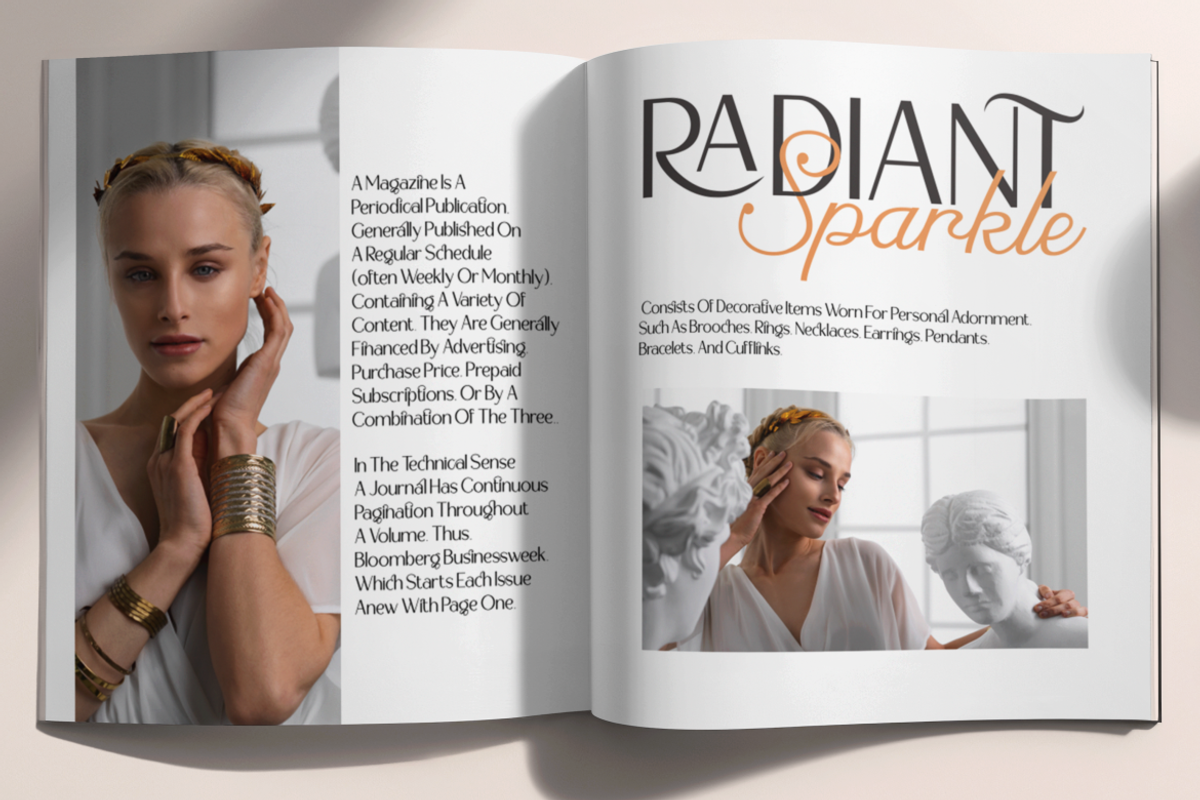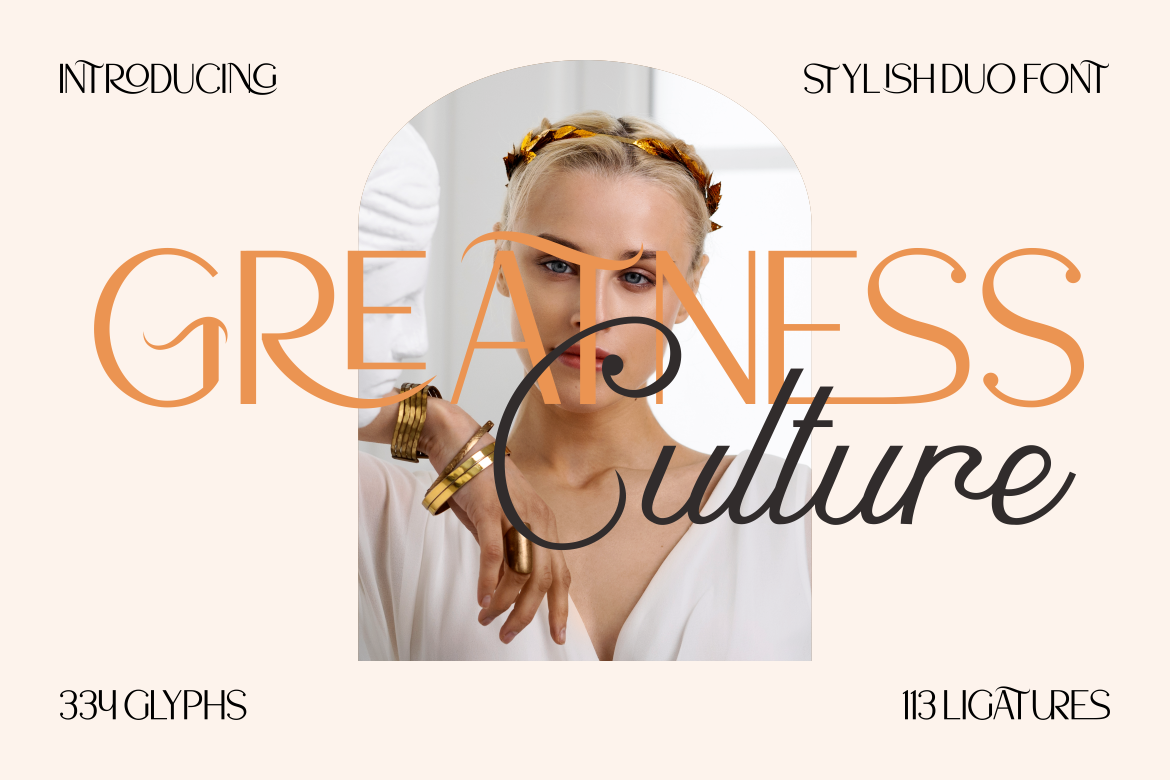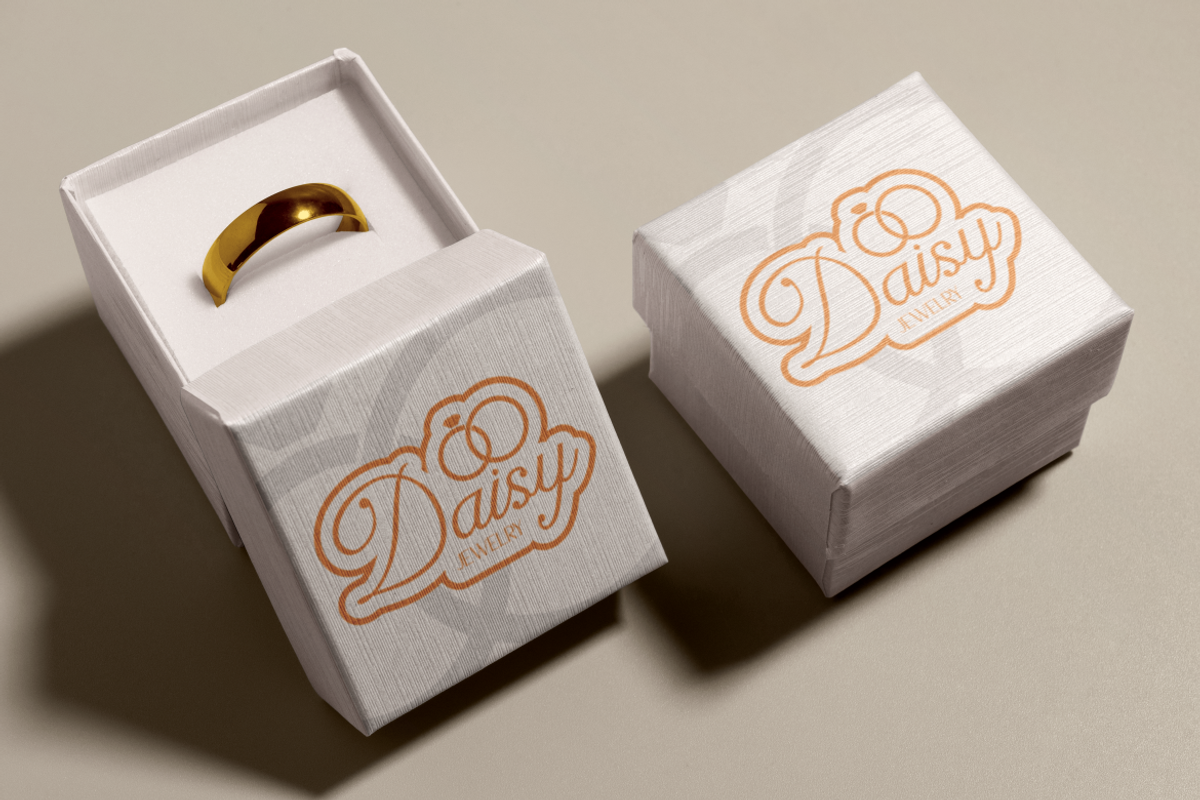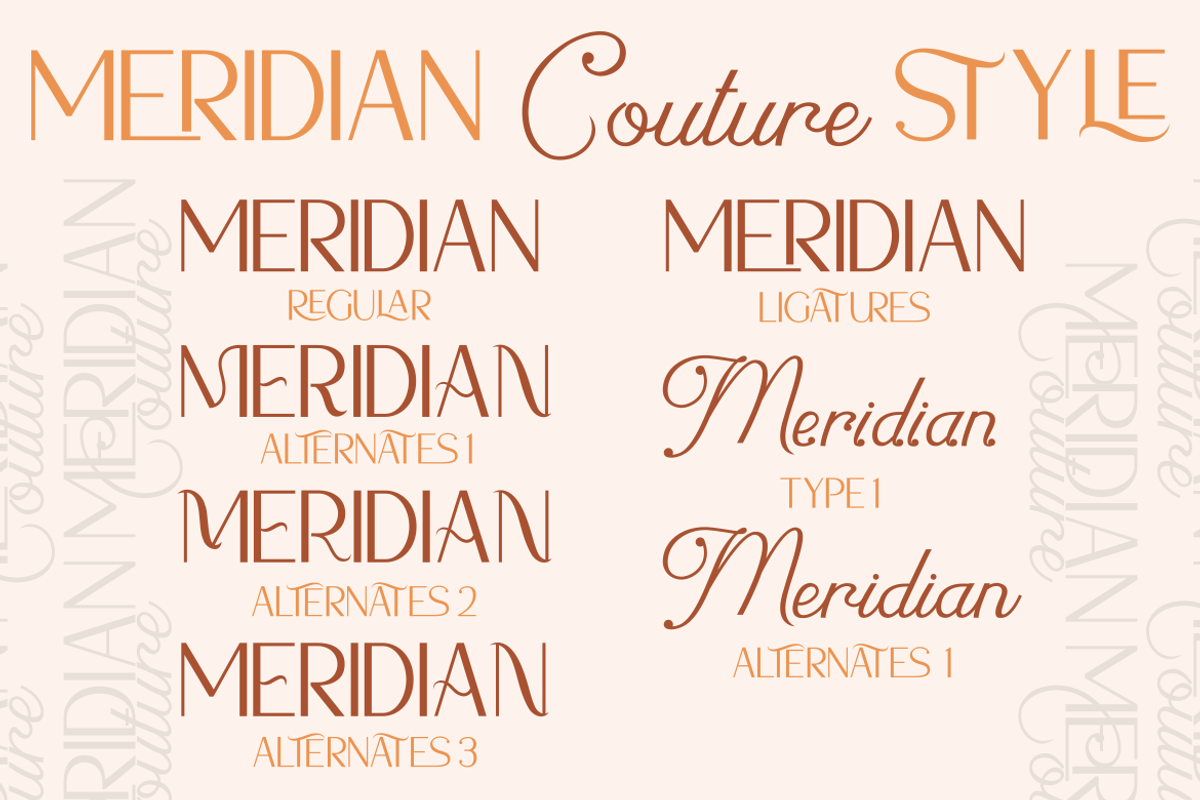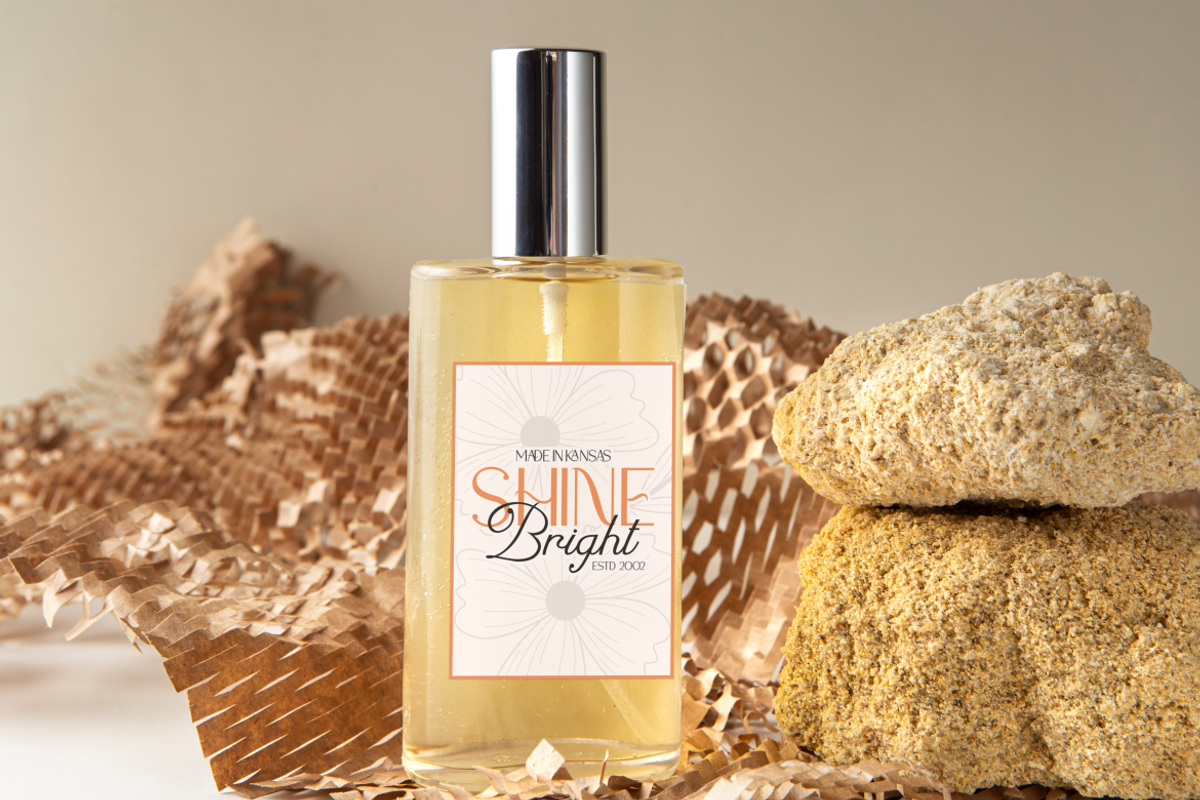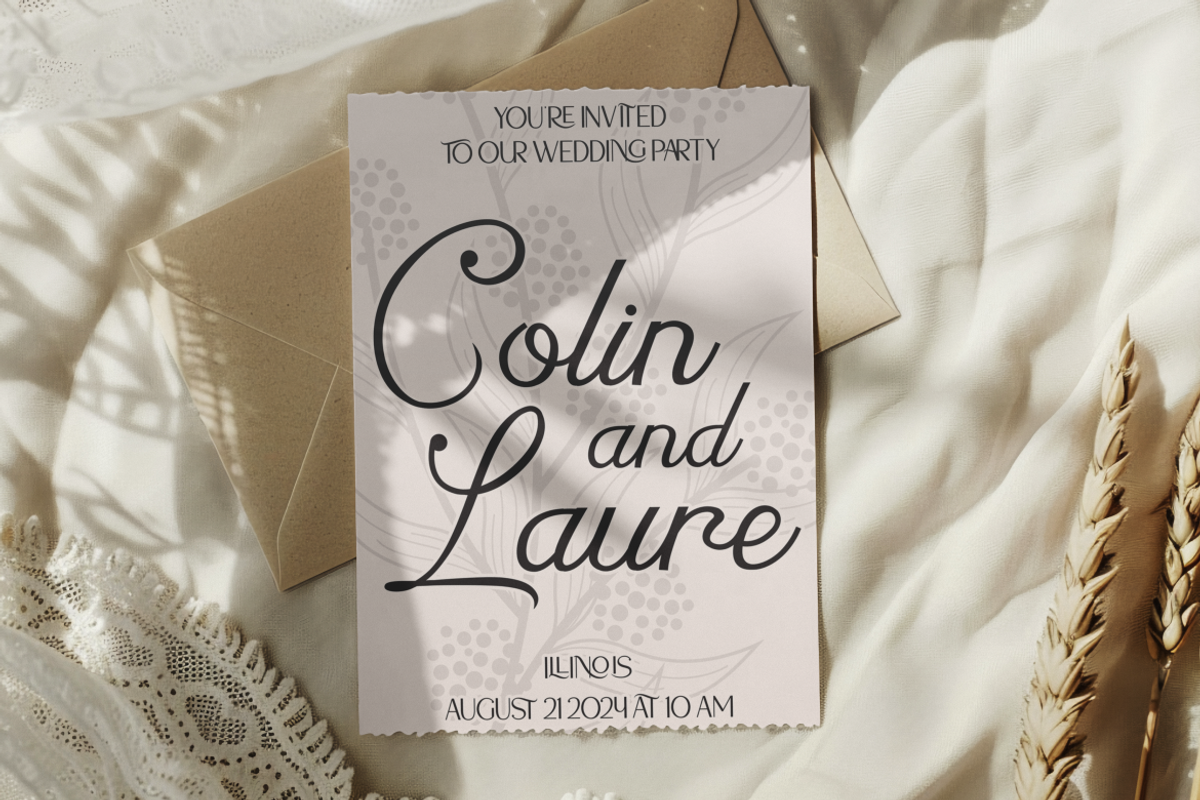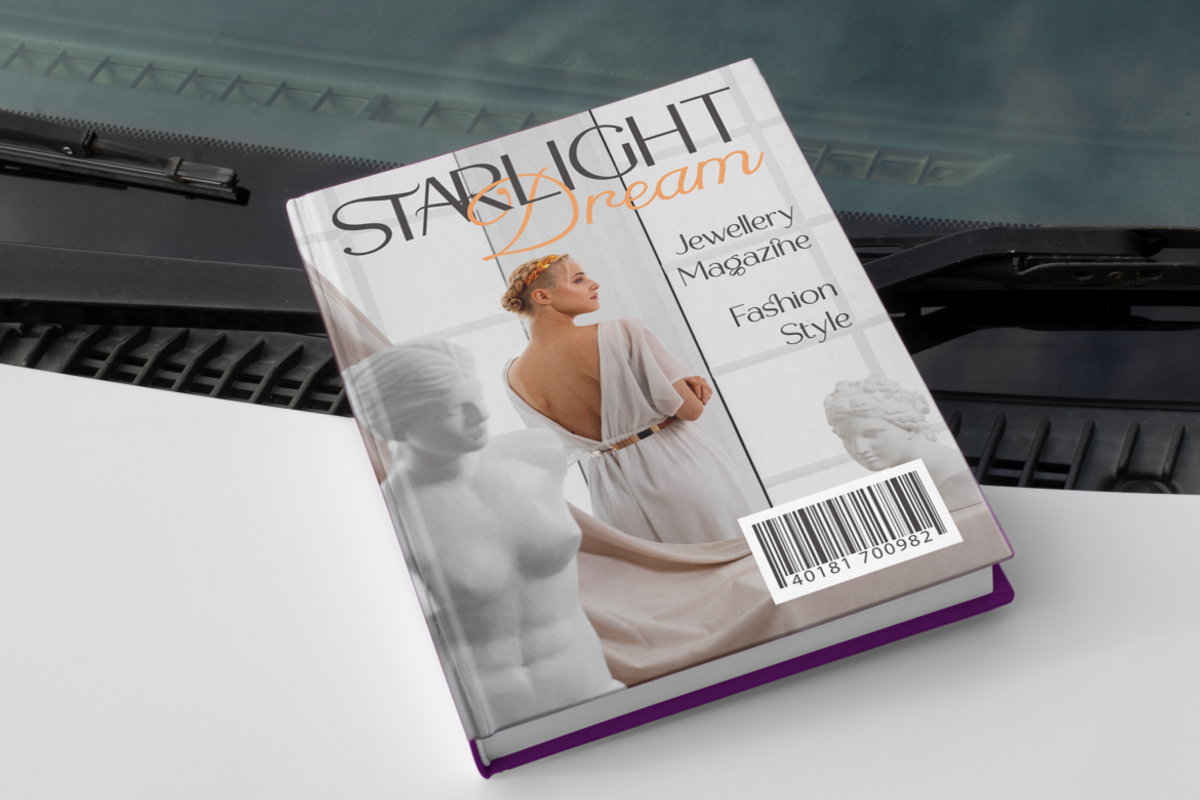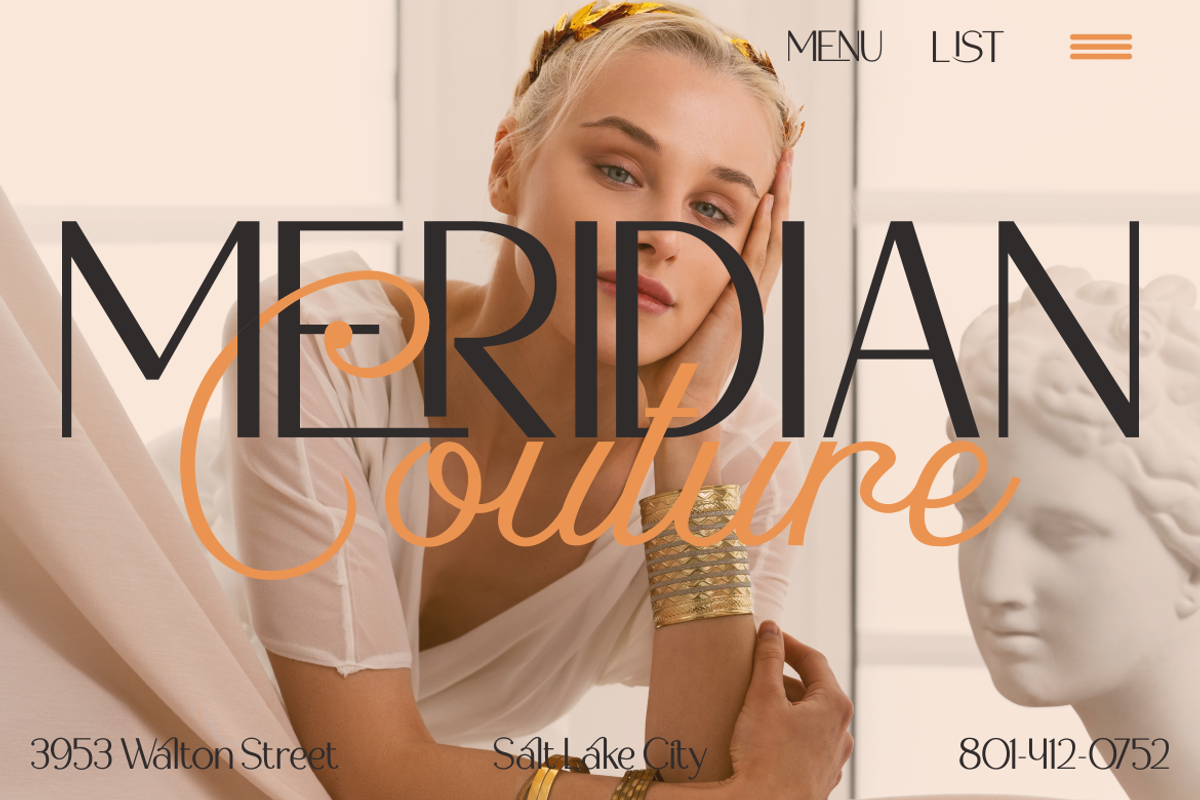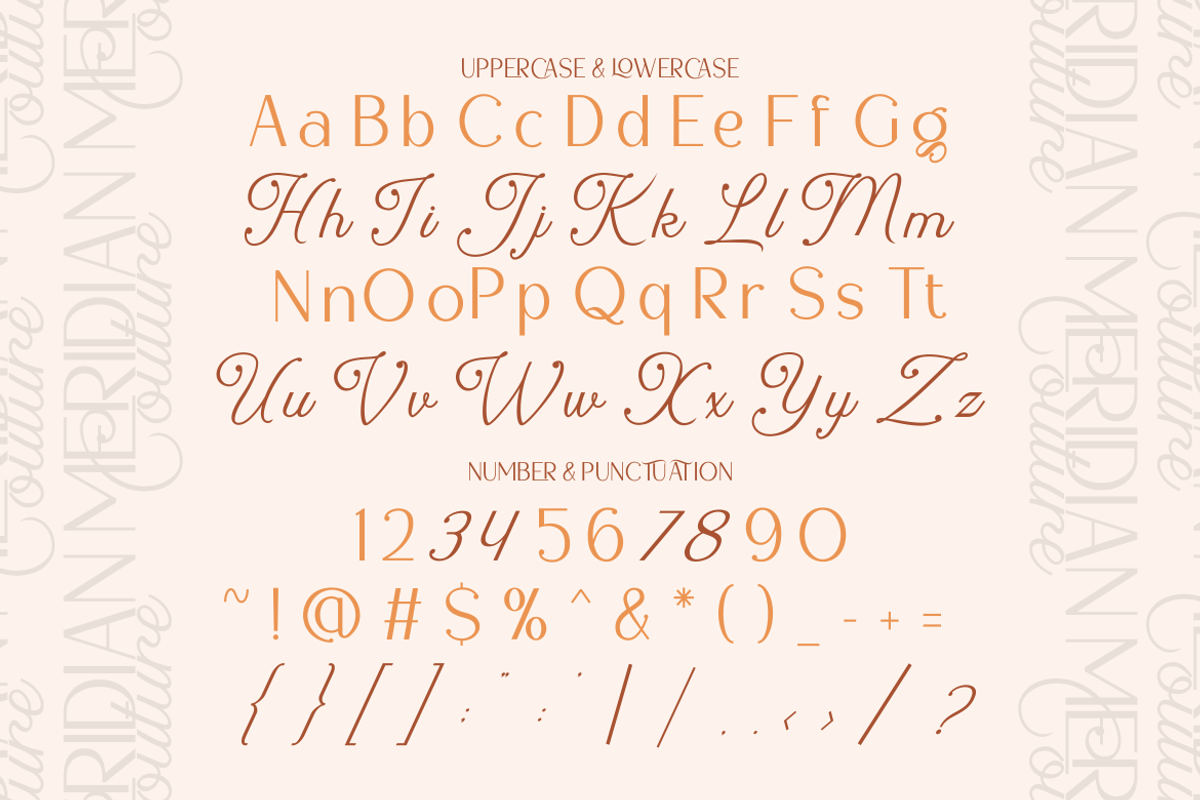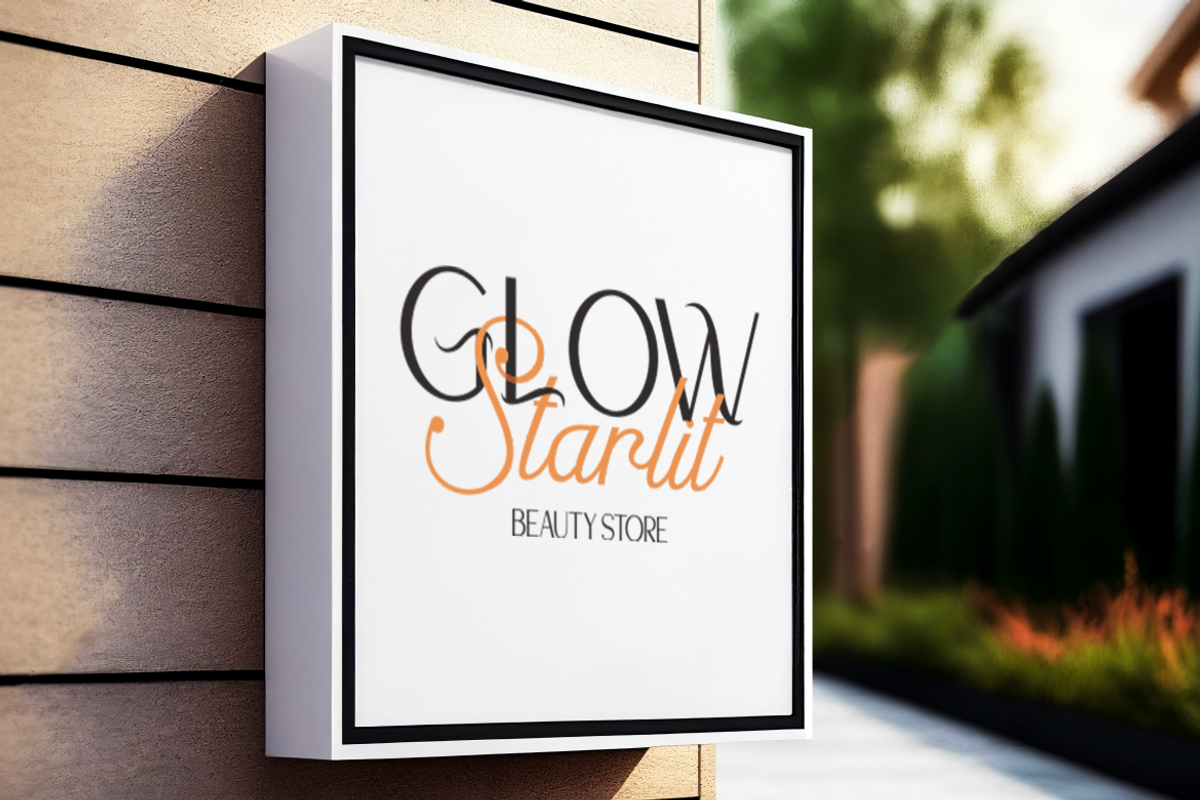
Greatness Culture - Stylish Duo Font
Introducing Greatness Culture, a refined and versatile stylish duo font that blends elegance and modern flair. This luxurious display font is the perfect combination of a sleek sans-serif and a flowing script, offering a sophisticated aesthetic ideal for high-end designs. With its smooth, contemporary lines, Greatness Culture adds a touch of class to logos, branding, and upscale packaging. Its clean sans-serif component projects professionalism and clarity, while the script adds a personal, artistic flourish, making this font duo perfect for both formal and creative projects.
With 334 glyphs and 113 ligatures, Greatness Culture brings versatility to the table. Whether you're working on branding, crafting invitations, or designing magazine covers, this font adapts seamlessly to any creative need. It's designed for designers who seek both modern and timeless elegance in their work. The balance of style between the sans and script elements allows for endless possibilities in typography, ensuring your projects stand out with a stylish, sophisticated edge.